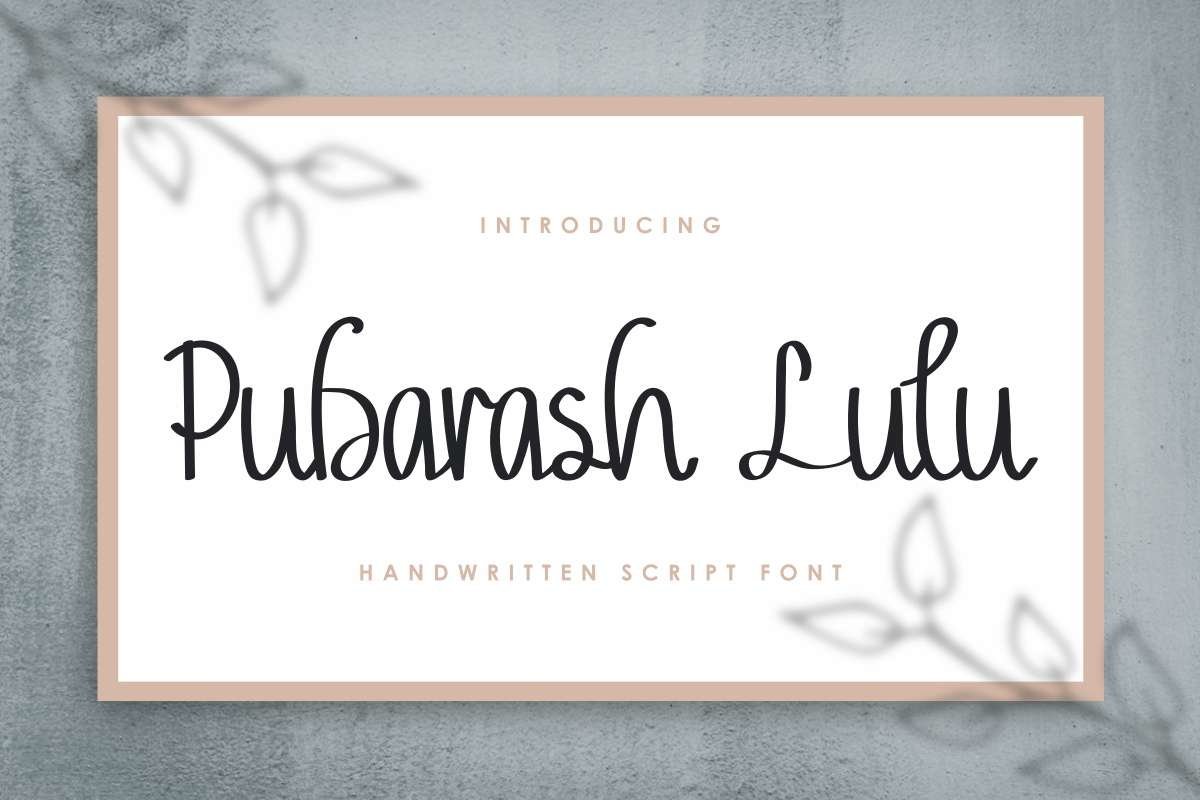
Pubarash Lulu
Hi Everyone,Please meet our newest awesome type : Pubarash Lulu Font.This font has a great handwriting style with a natural effect. Completed with many alternatives characters glyphs. It also has mutliple languages international glyphs.Pubarash Lulu Font was made in 2020 from Bandung and Garut Indonesia by our artists : Widiyanti and Sarah Suci.This font will work great on PC & Mac with Simple installations. Accessible in the Adobe Illustrator, Adobe Photoshop, Adobe InDesign, even work on Microsoft Word. It’s also PUA Encoded Characters.Once purchased, you will get full to use and the zip package that contains: